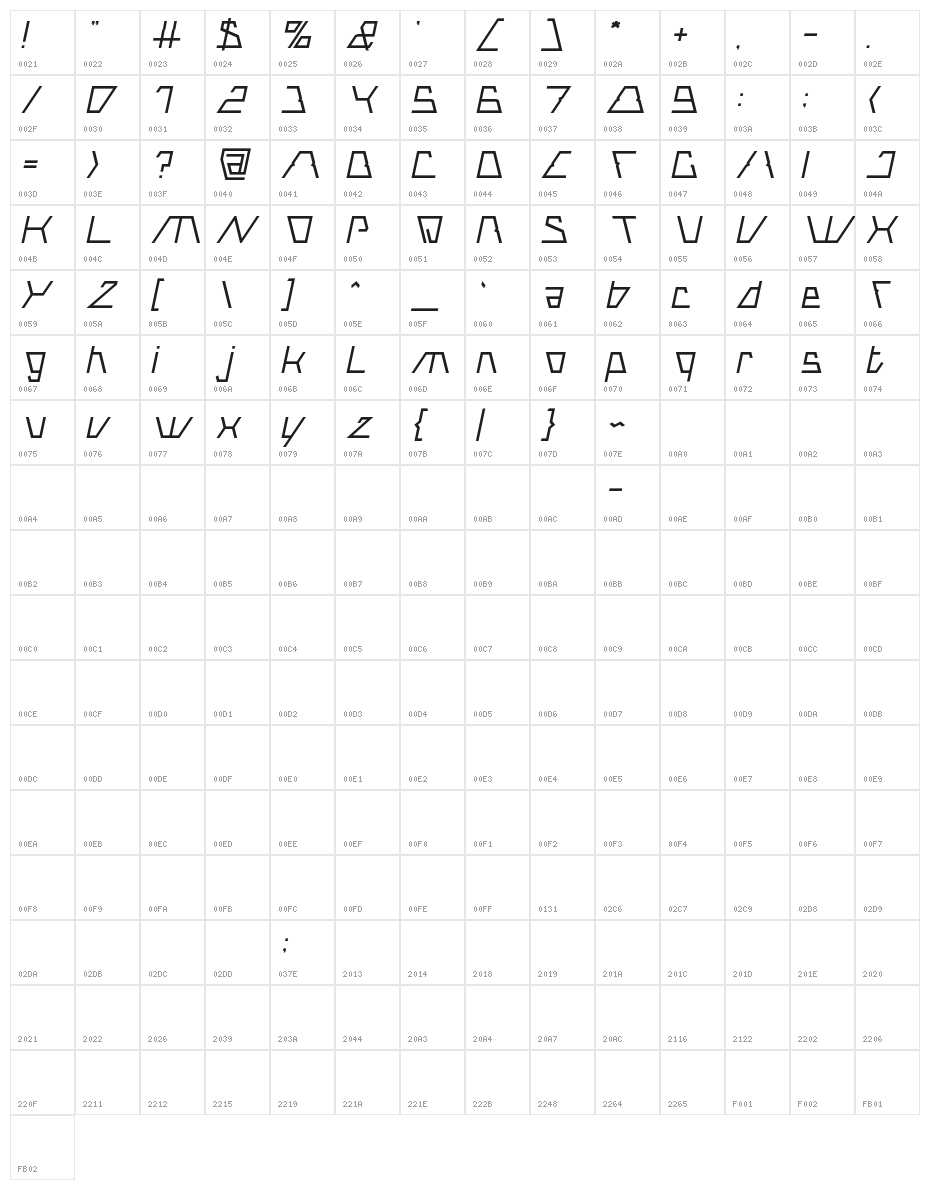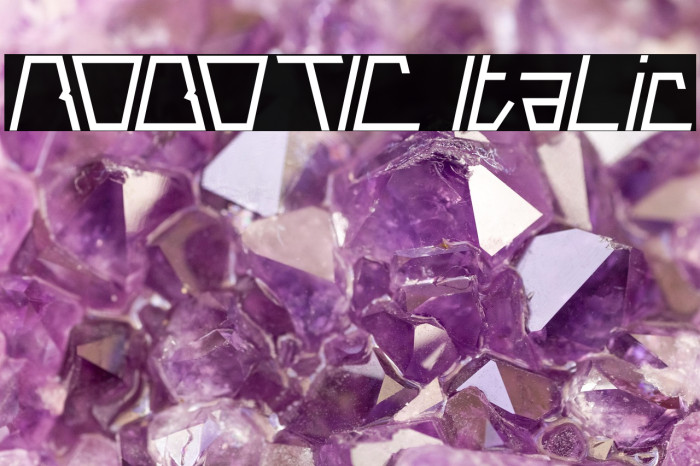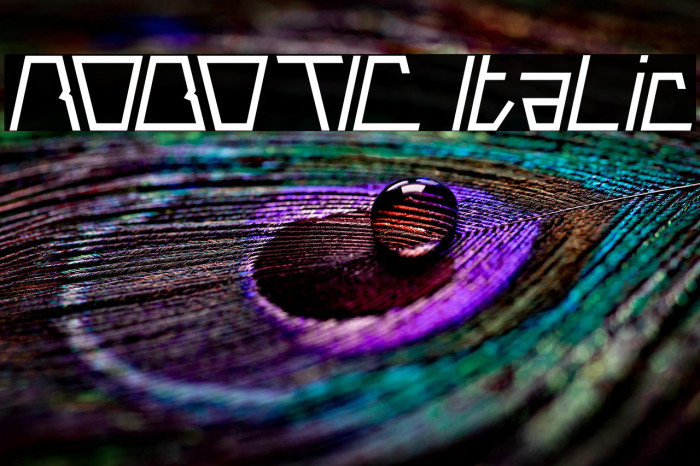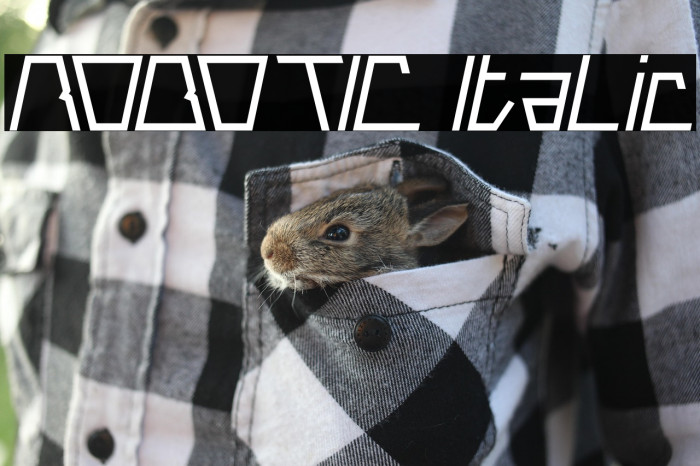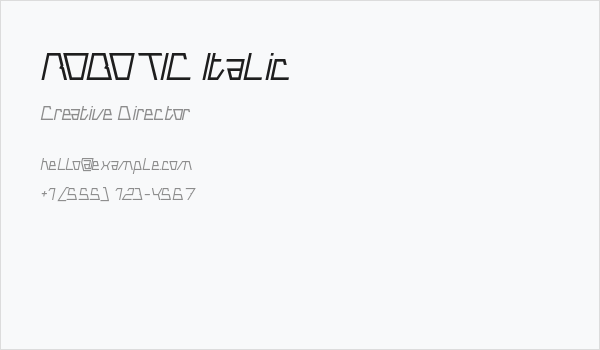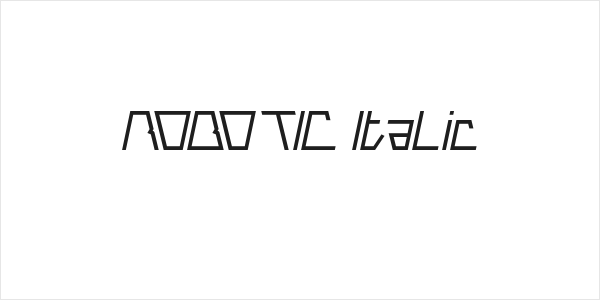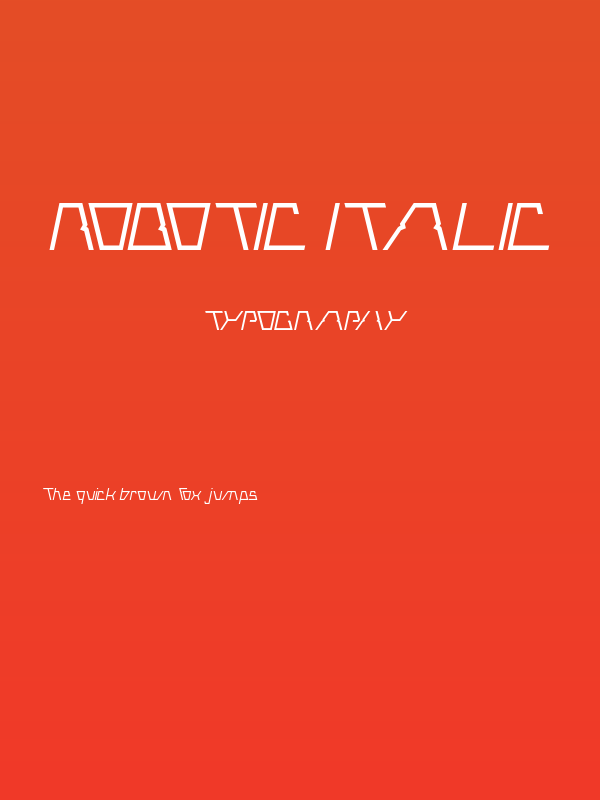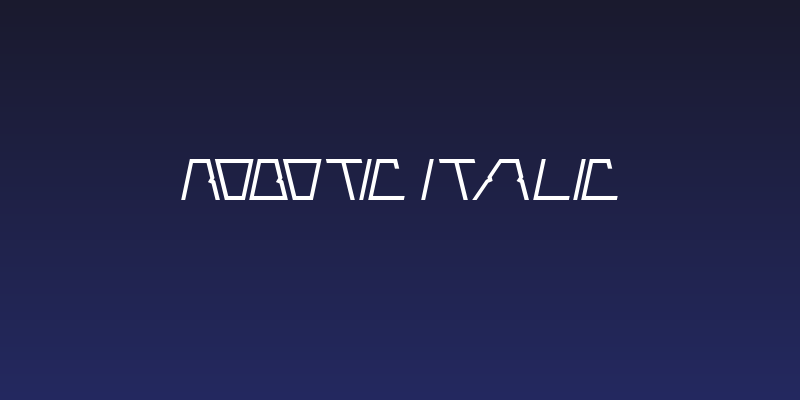
ROBOTIC Italic Font
ROBOTIC Italic Description
This font features a futuristic and angular design, characterized by sharp edges and geometric shapes. The letters are constructed with a consistent slant, giving it an italicized appearance. The uppercase and lowercase letters maintain a uniform style, with distinct angular cuts that create a robotic and mechanical feel. The numerals and special characters follow the same design principles, ensuring a cohesive look across all glyphs. The font's unique style makes it stand out, with a modern and tech-inspired aesthetic that is both bold and eye-catching.
| Proposed Projects | Ideal for tech-related branding, sci-fi movie posters, video game titles, and futuristic-themed designs. |